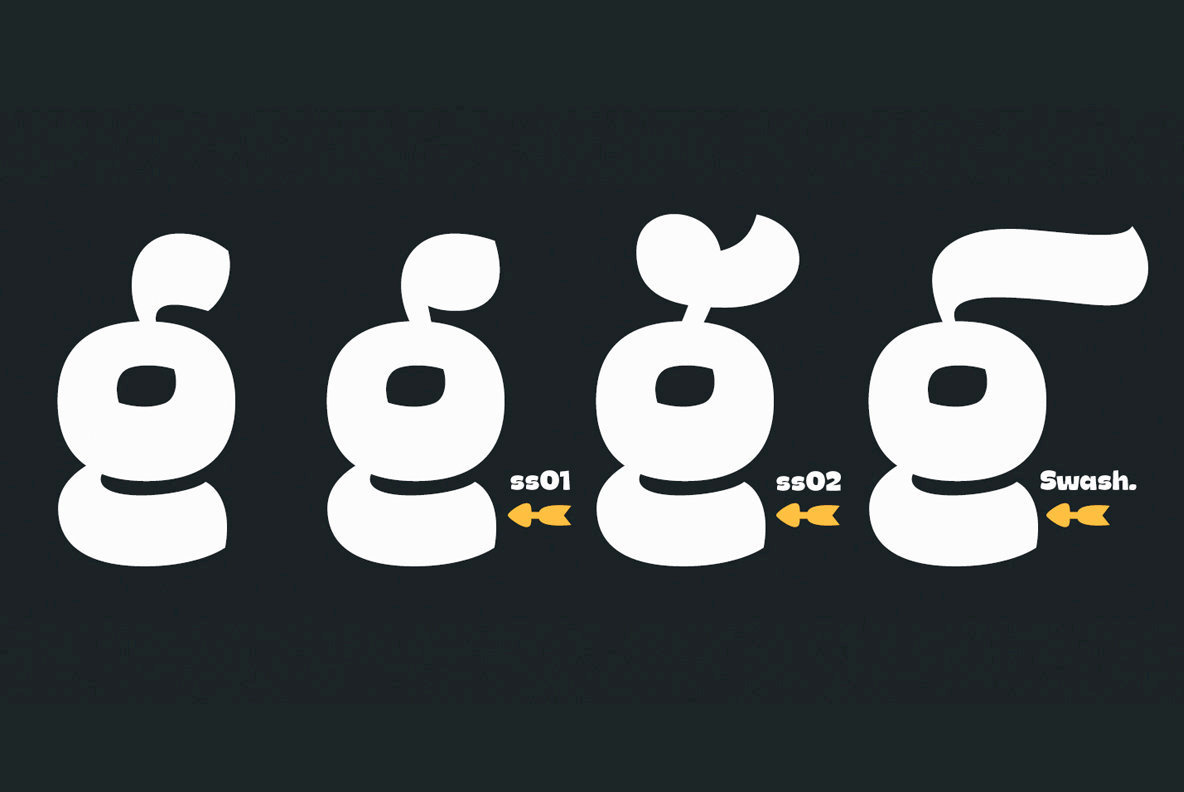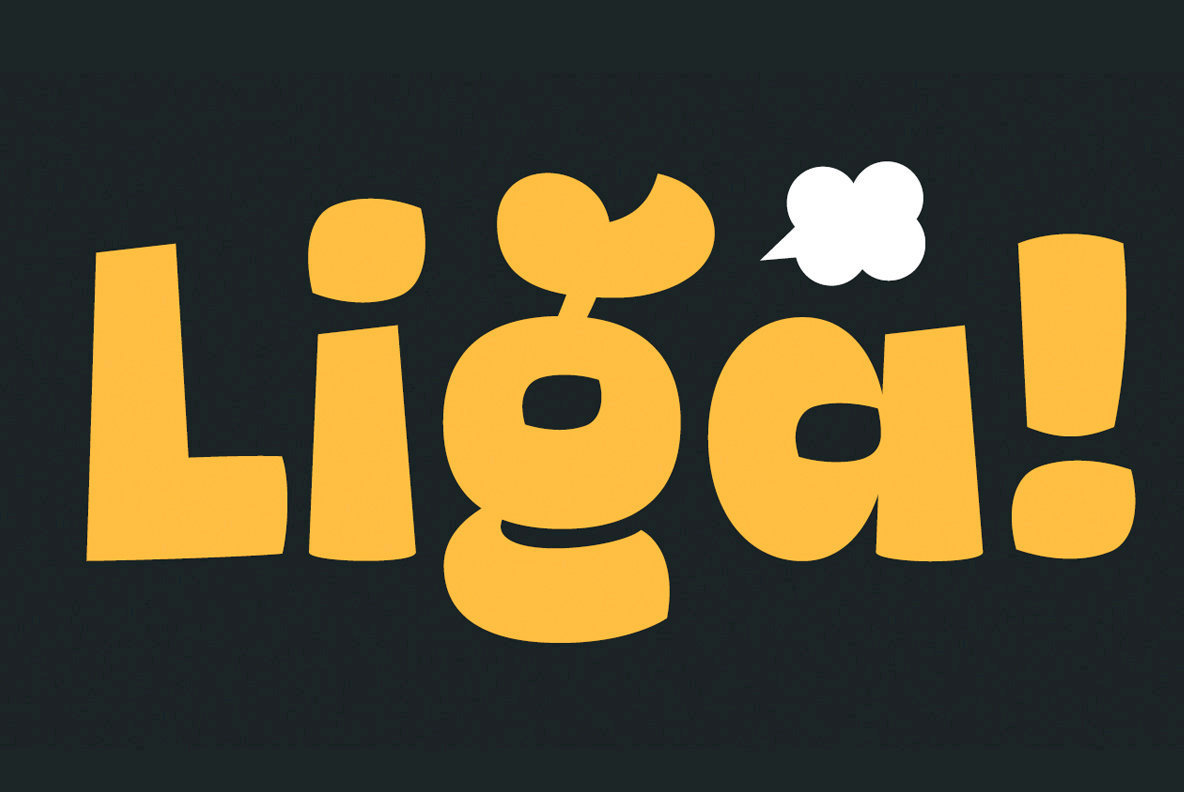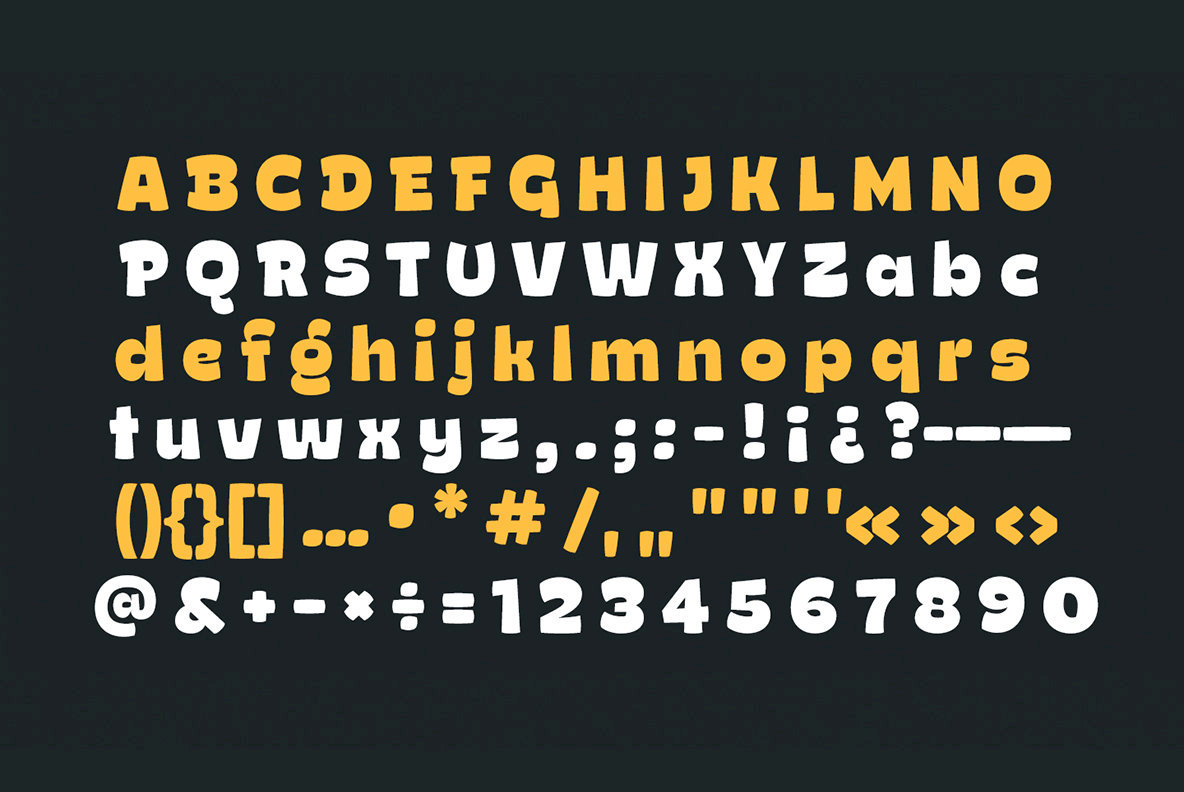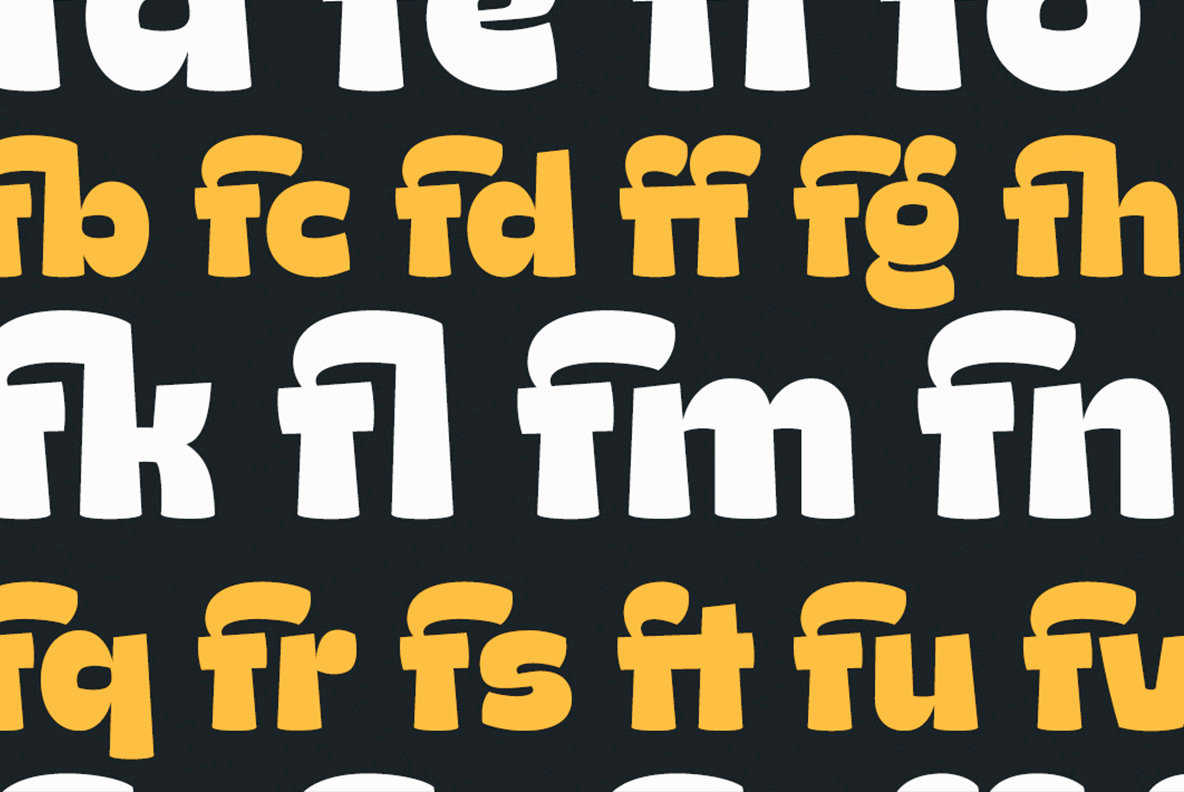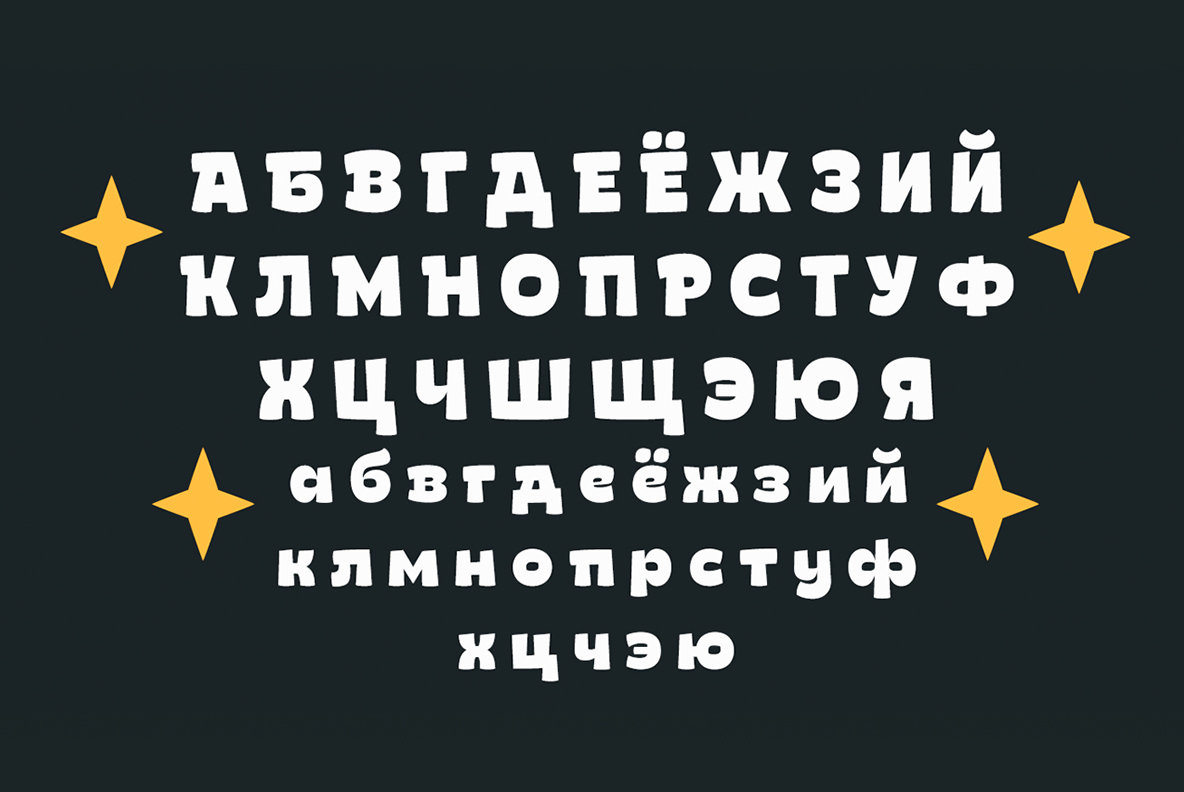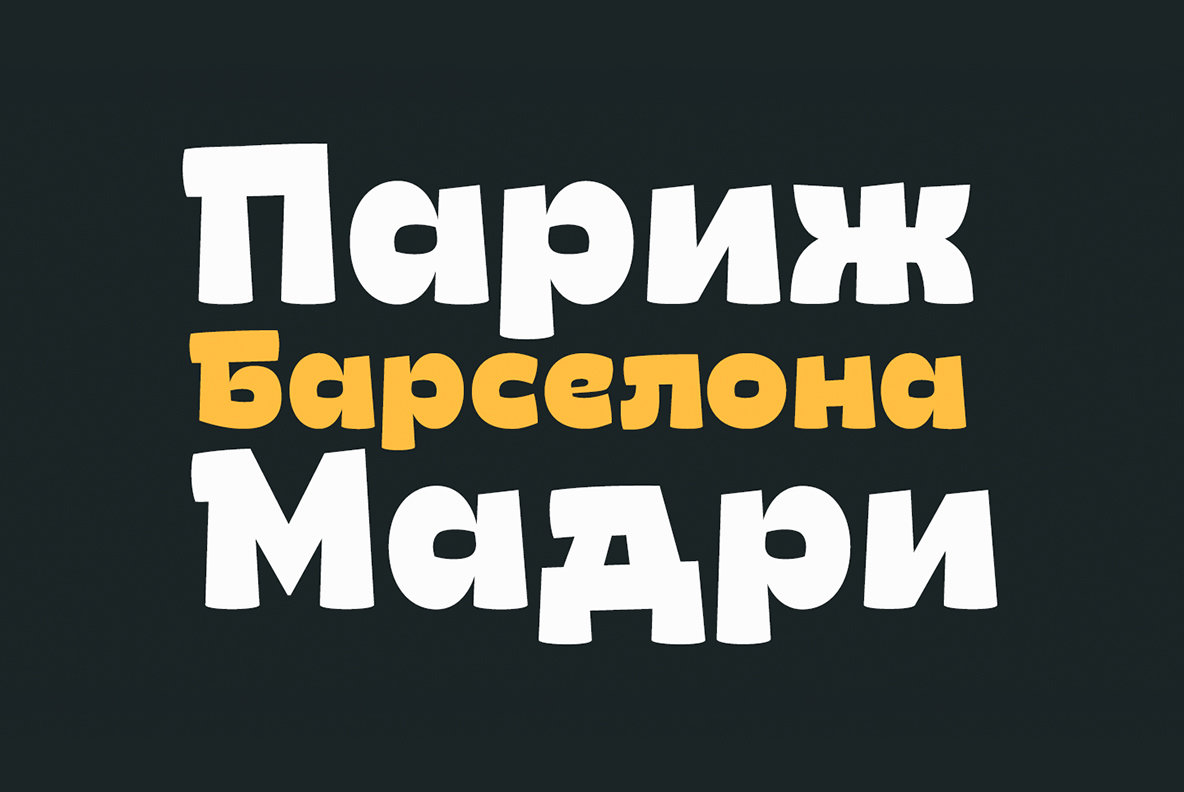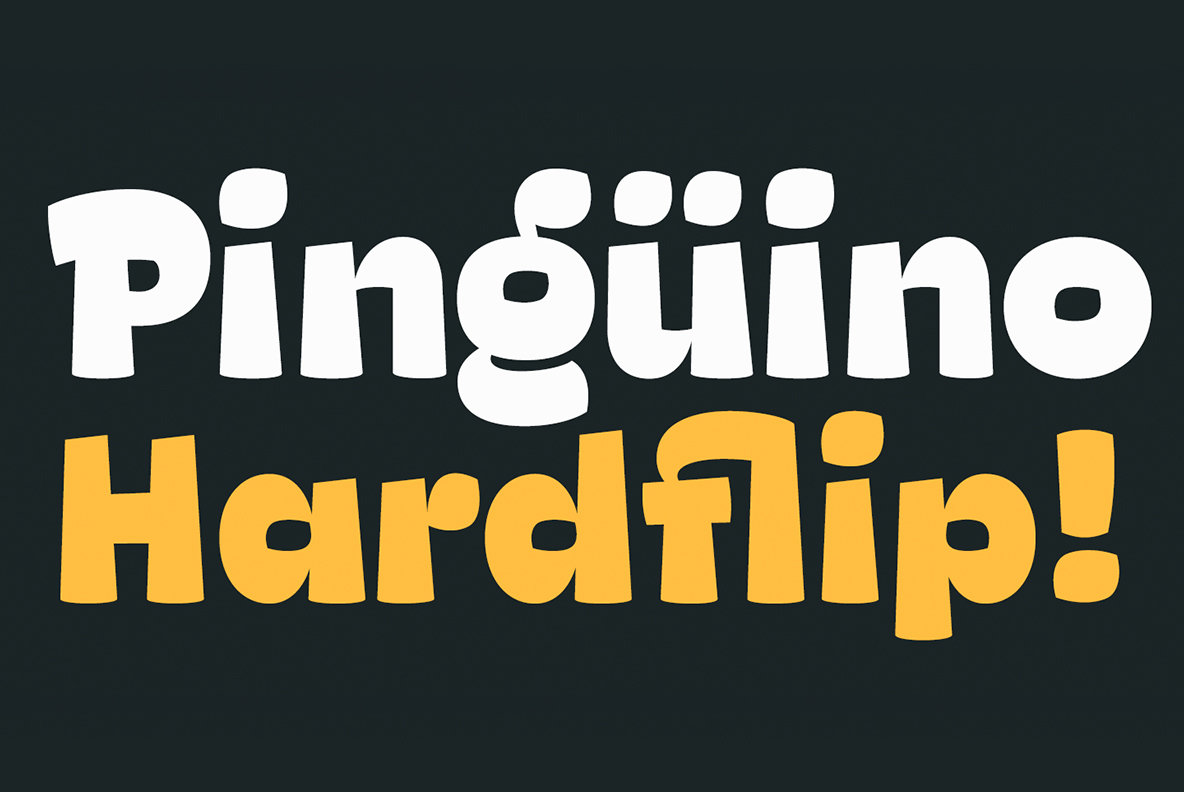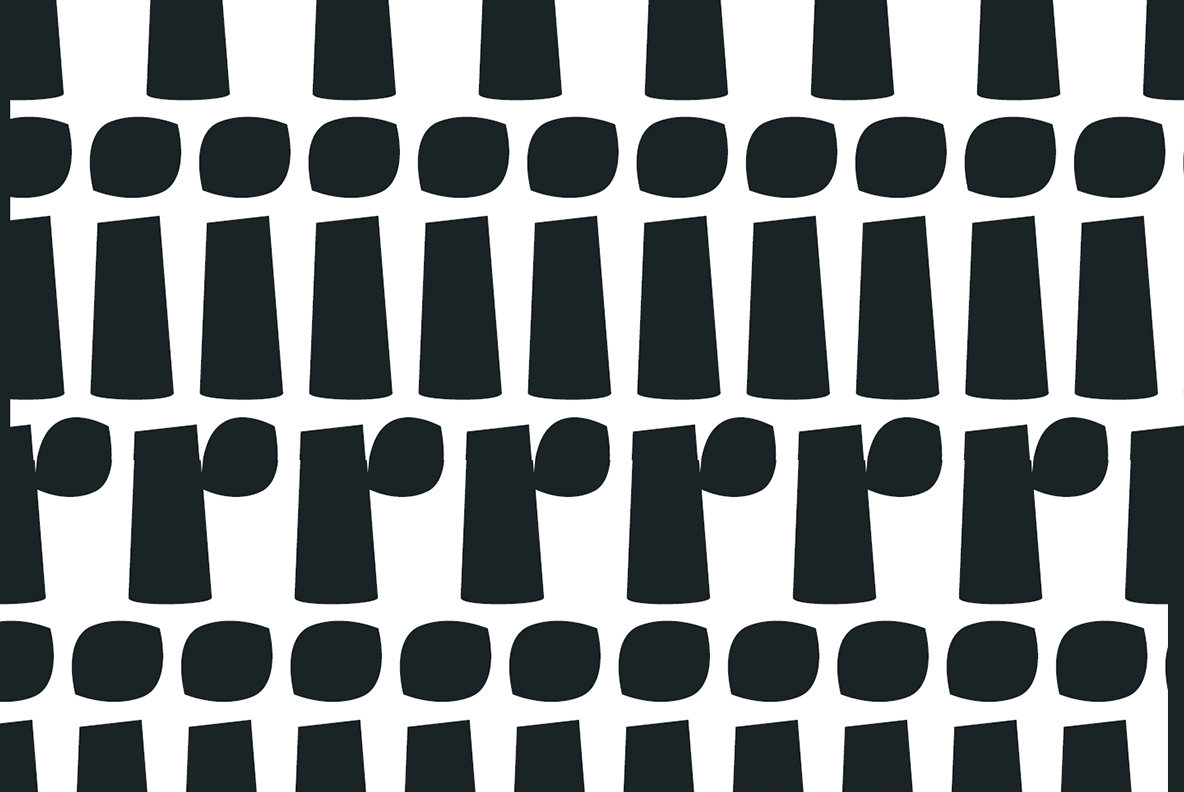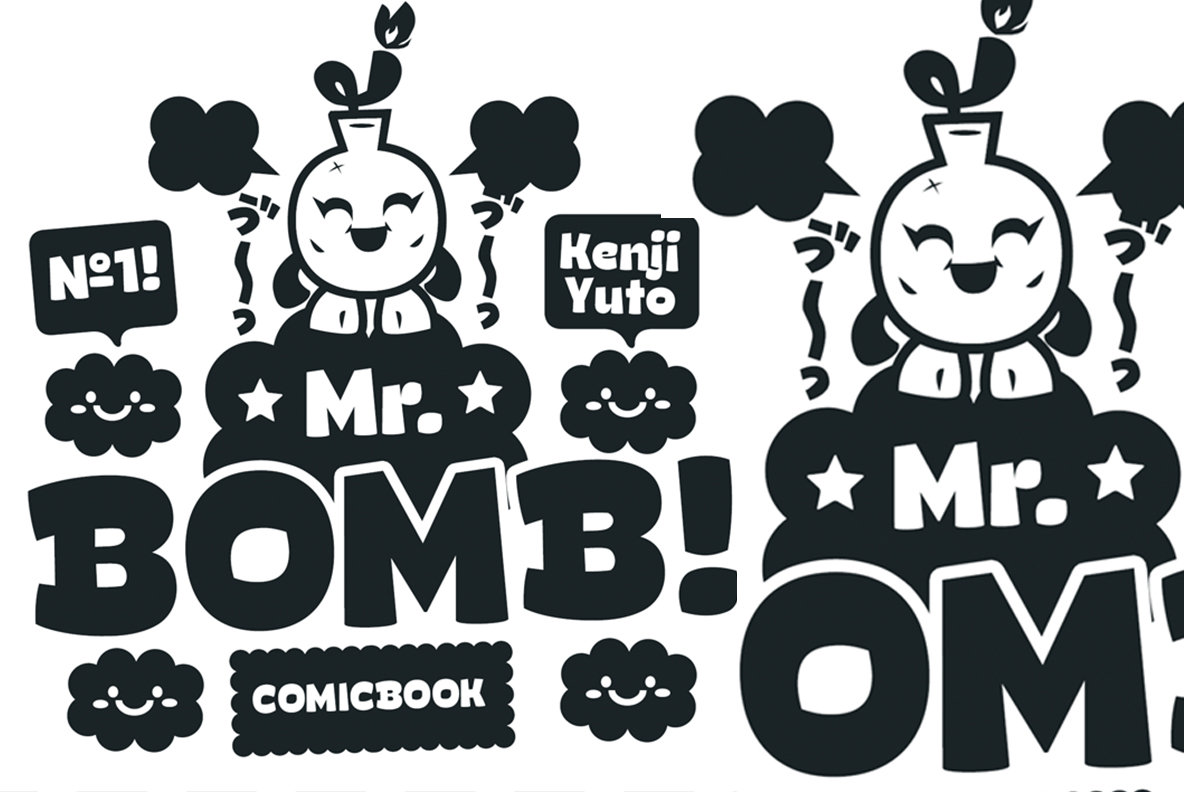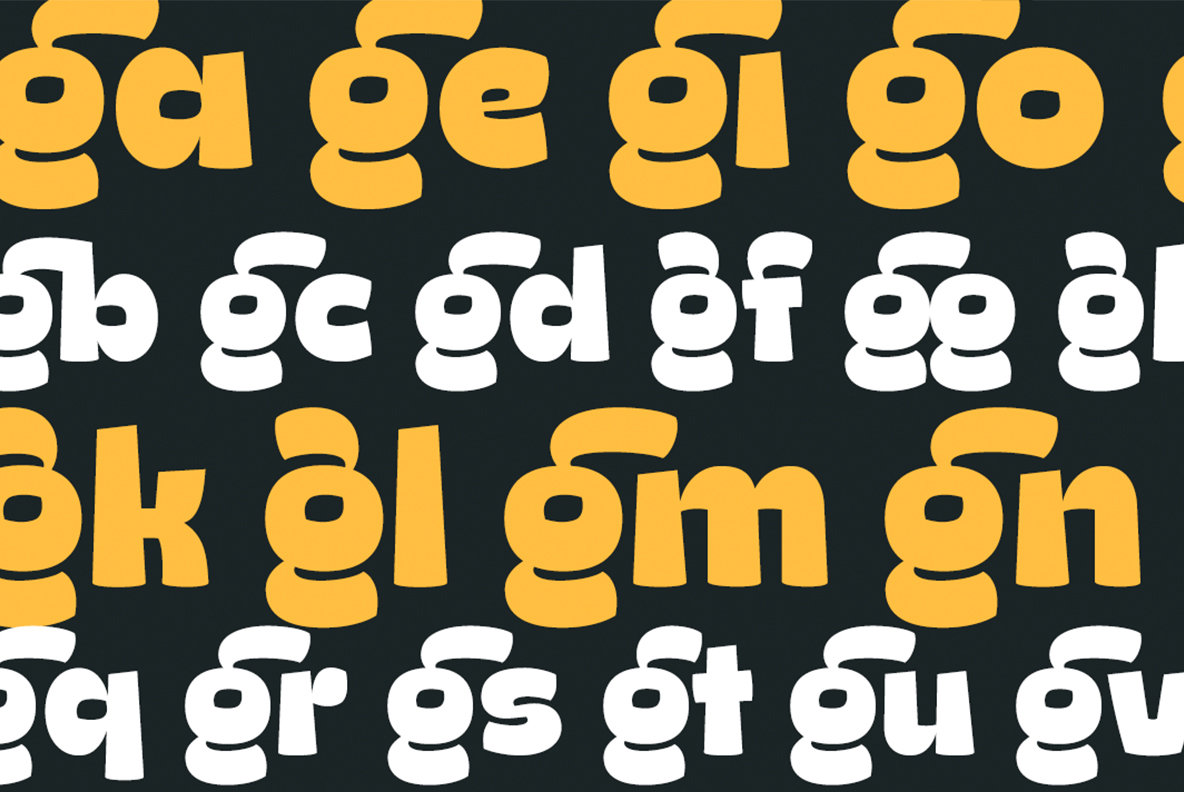
Ding Font
Ding by RodrigoTypo offers a delightful blend of density and gesture, making it a distinctive choice for projects aimed at younger audiences. This sans serif font's lively character is accentuated by various letter alternatives, providing a spectrum of design possibilities.Ding: A Playful Sans for Children's Titles